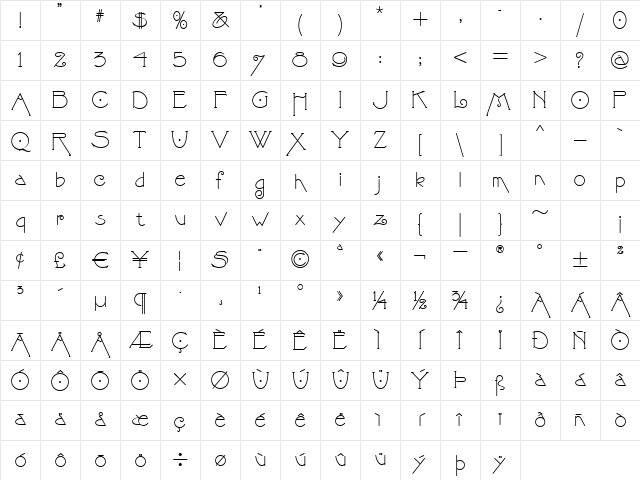
StrongsDraughtsman Light Free Font
StrongsDraughtsman Light
Foundry: Nick's Fonts
Designer: Nick Curtis
Design Context for StrongsDraughtsman
StrongsDraughtsman is a composed and adaptable typeface that performs quietly and consistently across a wide range of design contexts. Its slender proportions lend an understated elegance to any composition.